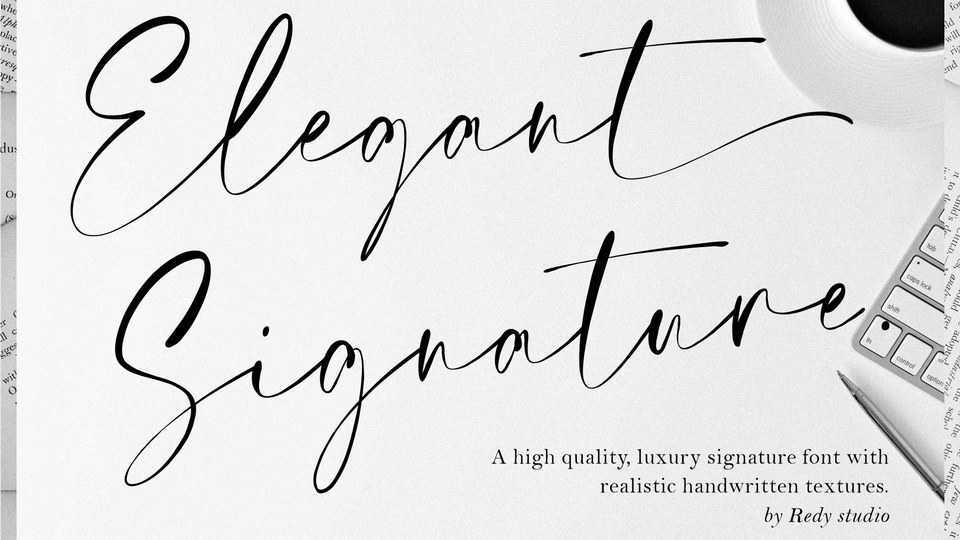
Elegant Signature Font › Fontesk – Download Grátis
Download Elegant Signature font, a high quality luxury signature typeface with realistic handwritten textures. It’s great for creating signature logos and watermarks for photography studio, headline & etc.
Designer: Redy Studio